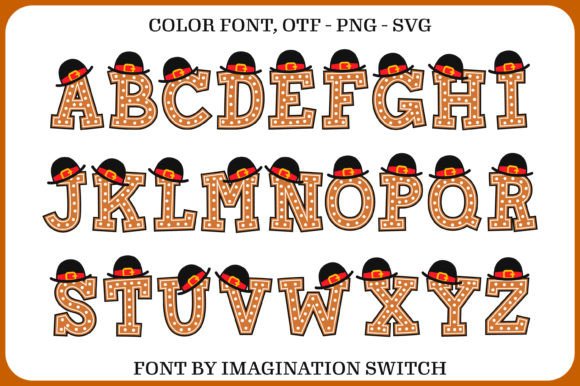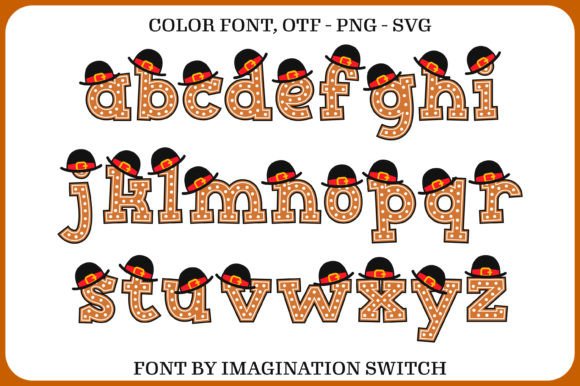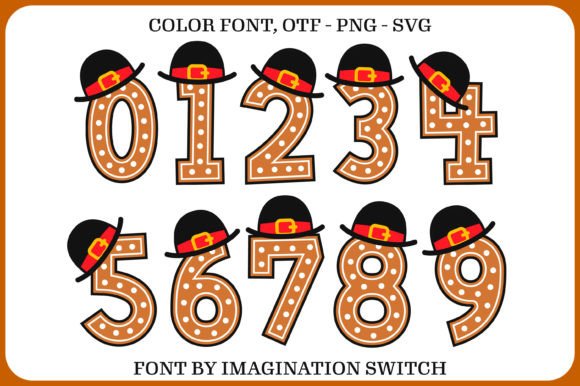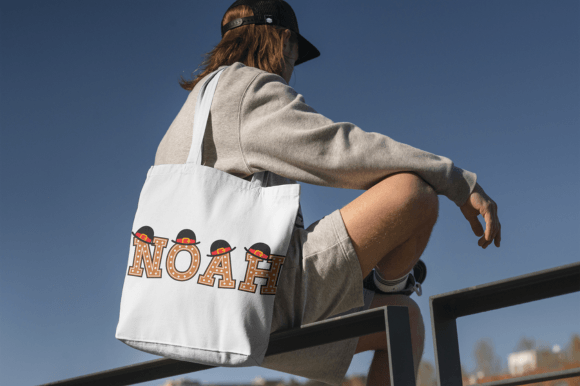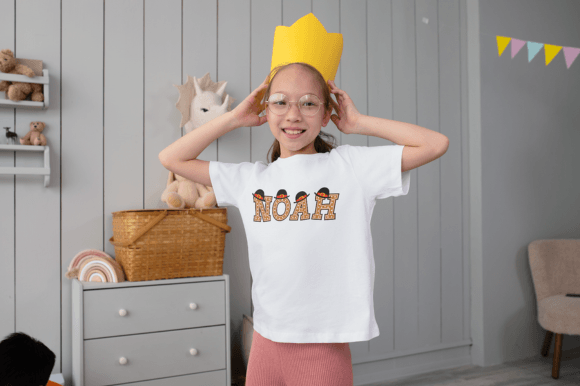
The Magic of Gingerbread Font: A Designer’s Delight
I still remember the time I was working on a festive holiday project, and I just couldn’t find the perfect font to match the vibe I was going for. My client wanted something that would make their promotional materials stand out, but I was stuck in a font rut. That’s when I stumbled upon the Gingerbread Font, and it was love at first sight! ✨ The unique blend of colors and typography instantly elevated my design, and I knew I had found the perfect fit.
So, what makes the Gingerbread Font so special? Let’s dive into the good stuff:
- ✅ Complete Character Set: The font comes with a full set of uppercase, lowercase, and numbers, making it incredibly versatile for various projects.
- ✅ Visually Stunning: The carefully chosen colors for each character add a mesmerizing visual touch, making each word and number stand out.
- ✅ Excellent Legibility: Despite its unique design, the font remains highly legible, making it perfect for both print and digital designs.
Of course, no font is perfect, and there are a few minor quirks to consider:
The Story Behind Gingerbread Font
The Gingerbread Font was designed by a team of creatives who wanted to capture the magic of the holiday season in a typographic creation. Inspired by the warmth and coziness of gingerbread houses, they carefully crafted a font that would bring a touch of festive fun to any design project. The result is a captivating font that’s sure to delight designers and crafters alike.